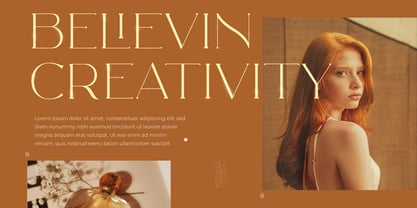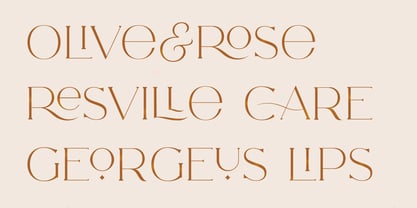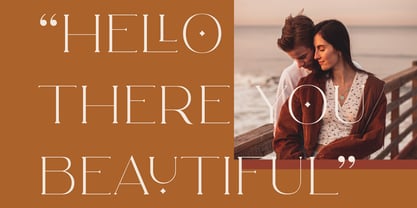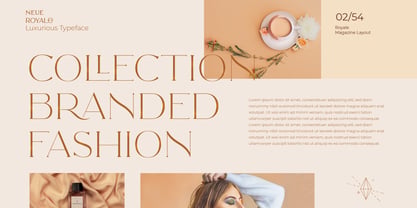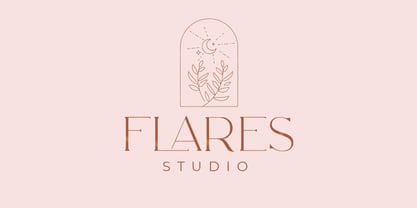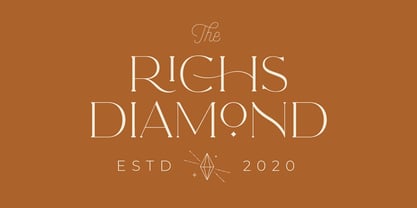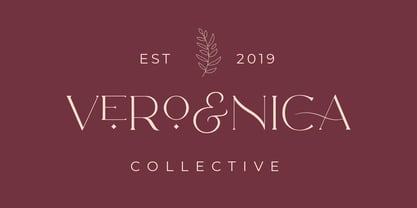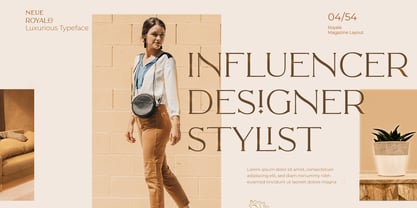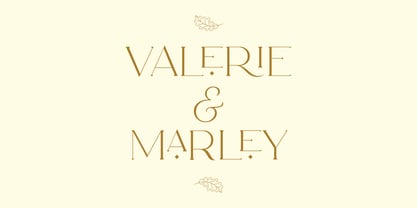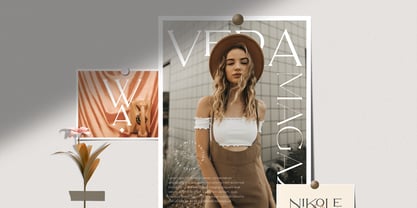
CCS Neue Royale
by Creative Corner Studio
The CCS Neue Royale Font Family was designed by Kurt Harahap and published by Creative Corner Studio. CCS Neue Royale contains 4 styles and family package options. More about this family
Introducing Neue Royale Luxurious Typeface, a Minimalist Modern Elegant font that features exquisite ligatures, a plethora of special alternative glyphs, and ornamental designs, along with comprehensive multilingual support. This versatile typeface excels in both large and small sizes, making it ideal for a variety of applications. Royale Luxurious is perfect for branding projects, logo design, clothing branding, product packaging, magazine headers, or as a chic text overlay on any background image. Enhance your design with this stylish font that combines elegance and functionality.
Designers: Kurt Harahap
Foundry: Creative Corner Studio
CCS Neue Royale